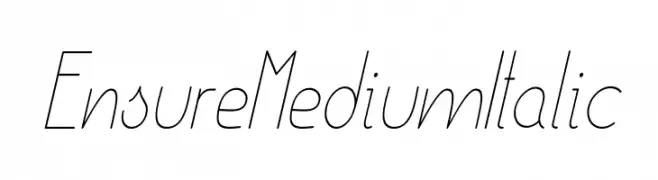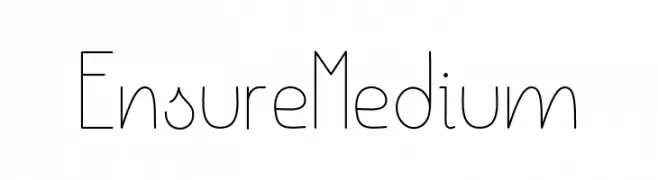
A sleek, minimalist font with thin, elongated letterforms and a modern aesthetic.
A modern, minimalist font with tall, narrow characters and thin strokes.
A sleek, italic font with elongated, thin characters and a modern aesthetic.
A sleek, italicized font with thin, elongated characters for a modern look.